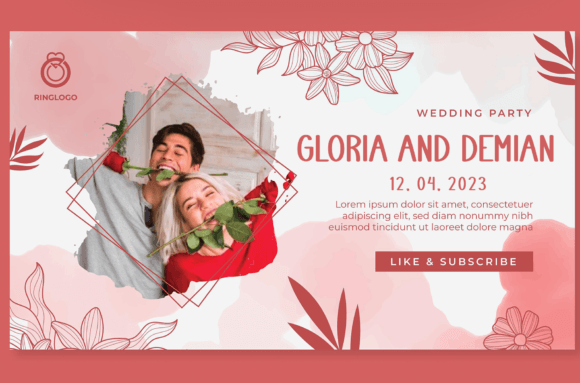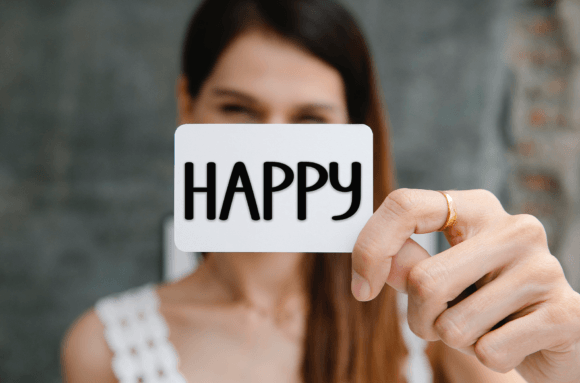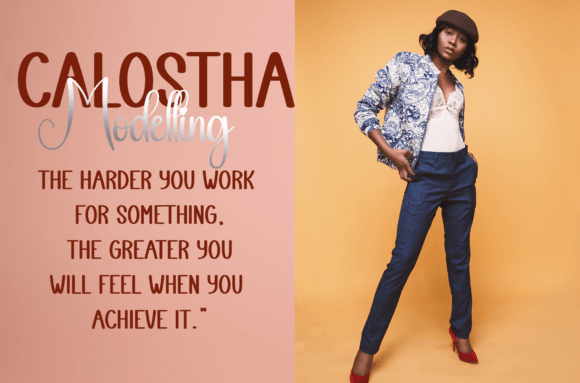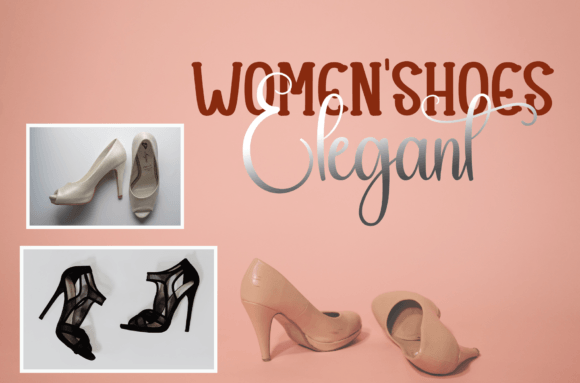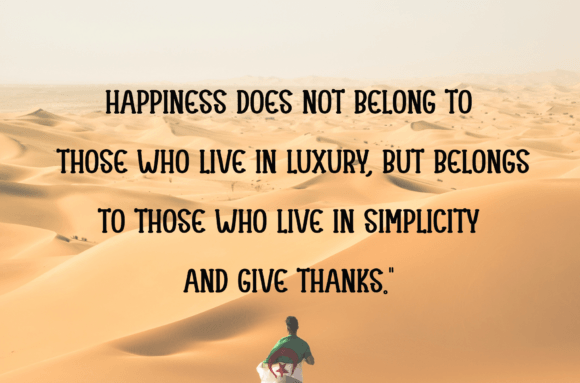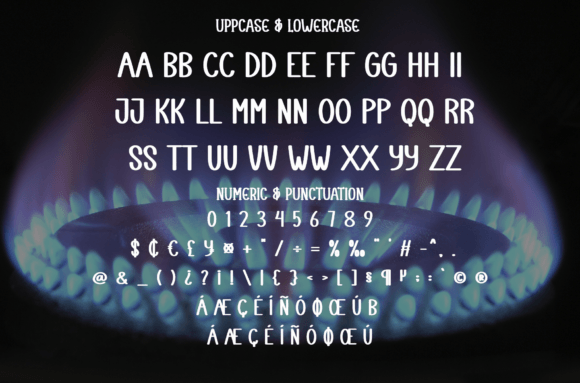
Introduction to Kitchener Font
Kitchener is a sweet and friendly handwritten font.
Fresh and neat, this font is ideal for writing wedding invitations, cards, or any other design that might need a fun touch .